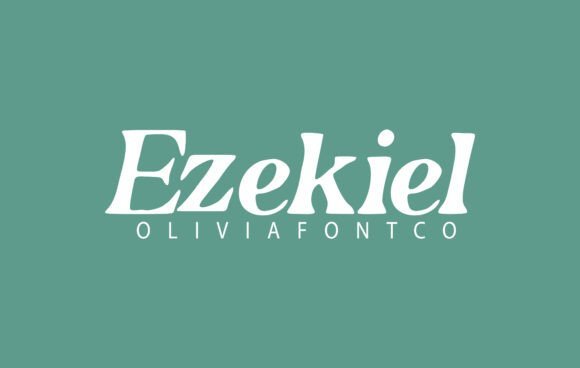
Discover the Timeless Charm of Ezekiel Font
Have you ever been working on a project, pouring your heart and soul into every detail, and suddenly, the perfect font pops up, elevating your design to the next level? That’s exactly what happens when you fall in love with the Ezekiel Font. This authentic serif font is more than just a typeface – it’s a romantic touch that adds a touch of elegance to any design.
Designed to be a true favorite among designers, Ezekiel Font is perfect for magazine headlines, social media, branding, wedding invitations, cards, and more. Its legibility and versatility make it a valuable addition to any design arsenal. Whether you’re a seasoned pro or just starting out, Ezekiel Font has the potential to take your creative ideas to new heights.
Ezekiel Font Key Features
- Font Family: Ezekiel is a serif font family designed for readability and aesthetics.
- Unique Characteristics: Features a distinctive, elegant design with subtle flair on the letter ‘e’ and other unique flourishes.
Ezekiel Font Review
I’ve had the chance to work with the Ezekiel font, and overall, I’m impressed with its unique charm ✨. The font’s vintage aesthetic is reminiscent of classic serif fonts, but with a modern twist that sets it apart from more traditional fonts. The font’s strong, sturdy lines and elegant curves make it perfect for creating a sense of sophistication and elegance in any design.
The font also comes in a range of weights, from light to bold, which gives designers a lot of flexibility when it comes to creating visually appealing typography ✨. Additionally, the font’s x-height is well-balanced, making it easy to read even in smaller sizes.
- ⚠️ The font’s ligatures can be a bit inconsistent at times, which may lead to some minor issues with text alignment.
- ⚠️ Some characters may appear slightly wider or narrower than others, which can affect the overall flow of text.
Overall, I think the Ezekiel font is a great choice for designers looking to add some character to their work ✨. While it’s not perfect, its unique charm and versatility make it a solid addition to any design toolkit.
The Ezekiel Font is a versatile and elegant font that can be used for a variety of purposes, including:
- Business cards and branding materials
- Book covers and publishing materials